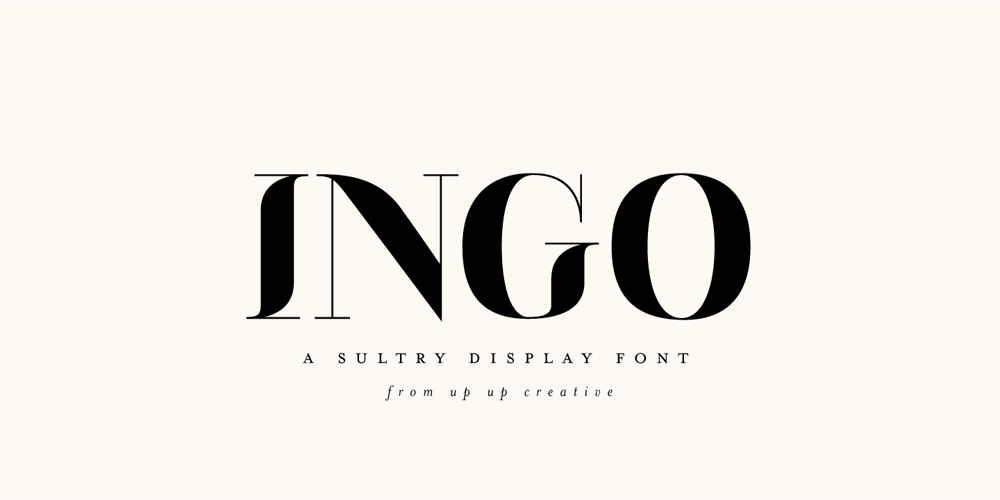
Ingo Font Family was designed by Julie Green and published by Up Up Creative. Ingo contains 1 styles and family package options. Introducing Ingo, a sultry display font with smooth curves and high contrast. Featuring an ultra-modern and experimental yet highly readable “deconstructed serif” style, Ingo is perfect for your next editorial, advertising, branding, book, or invitation project.Ingo includes approximately 440 glyphs. OpenType features include multilingual support (including multiple currency symbols – for kicks I even included a Bitcoin symbol in there), standard and discretionary ligatures, and two ampersand variants. The OpenType features can be very easily accessed by using OpenType-savvy programs such as Adobe Illustrator and Adobe InDesign.